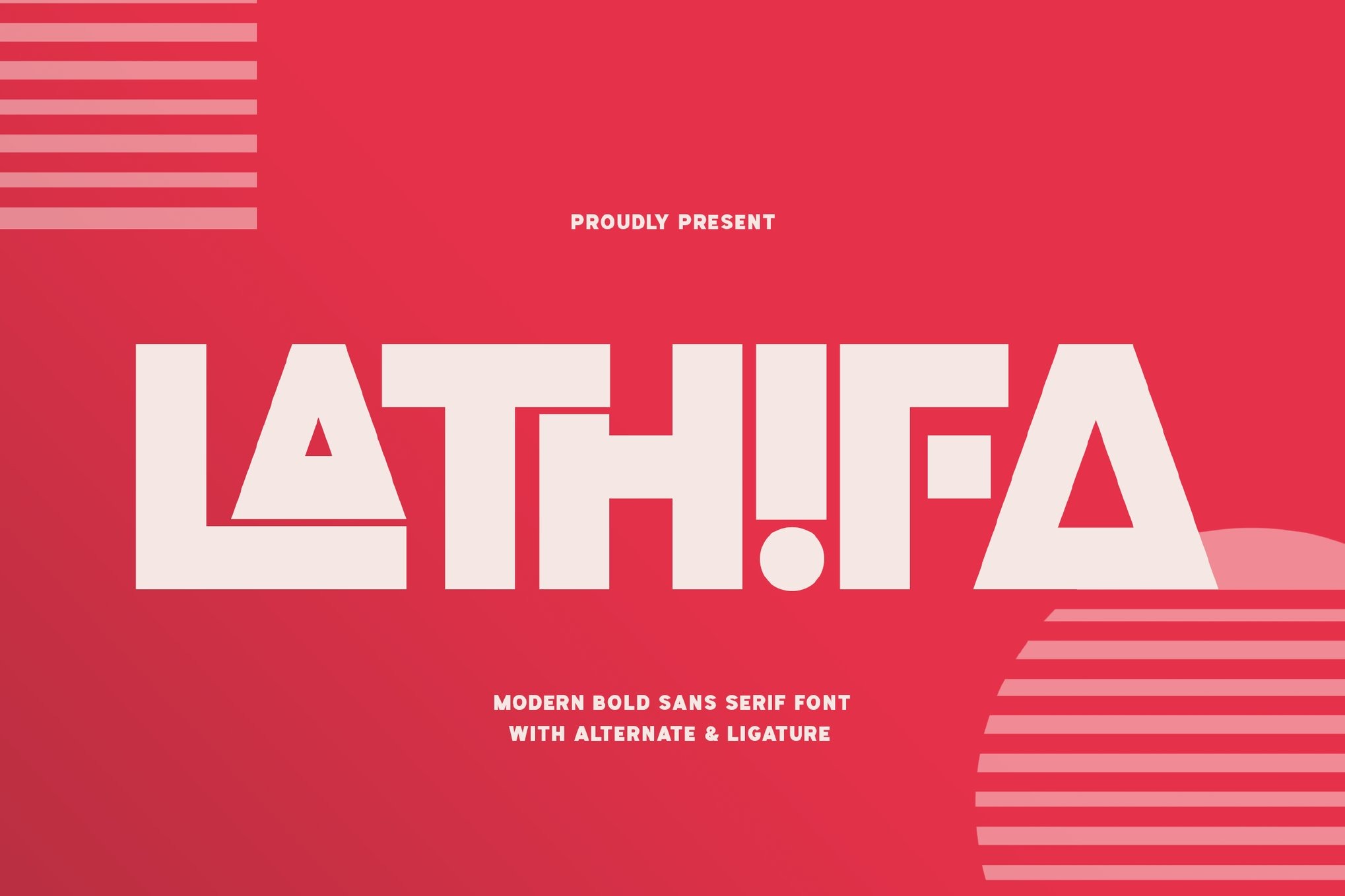
Lathifa Modern Sans Serif Font
Lathifa Modern Sans Serif Font is a premium-quality font developed to enhance your work with a polished, modern, and visually elevated look. Lathifa is a strong and modern bold sans serif typeface designed to make a confident visual statement. With its solid letterforms, clean lines, and balanced proportions, Lathifa delivers a powerful yet refined look that stands out in any design. Its bold character makes it highly effective for eye-catching headlines, impactful branding, and modern visual compositions. Whether you’re working on logos, posters, or digital content, Lathifa brings clarity, strength, and contemporary style to your typography.